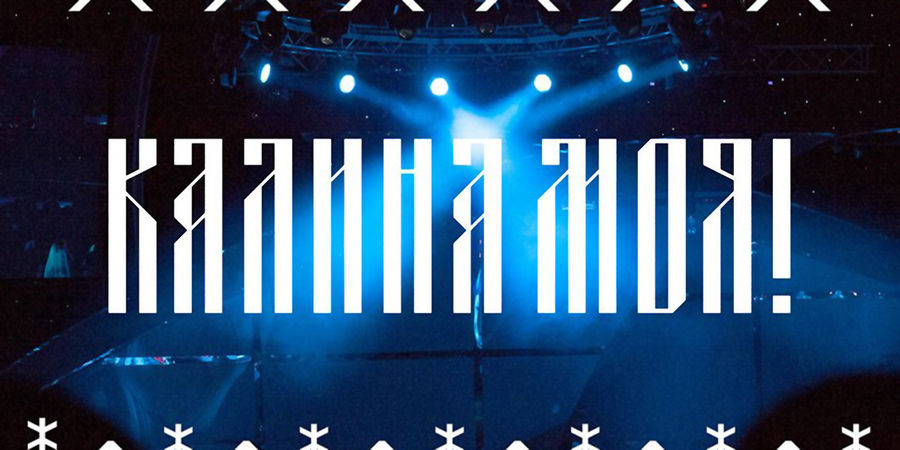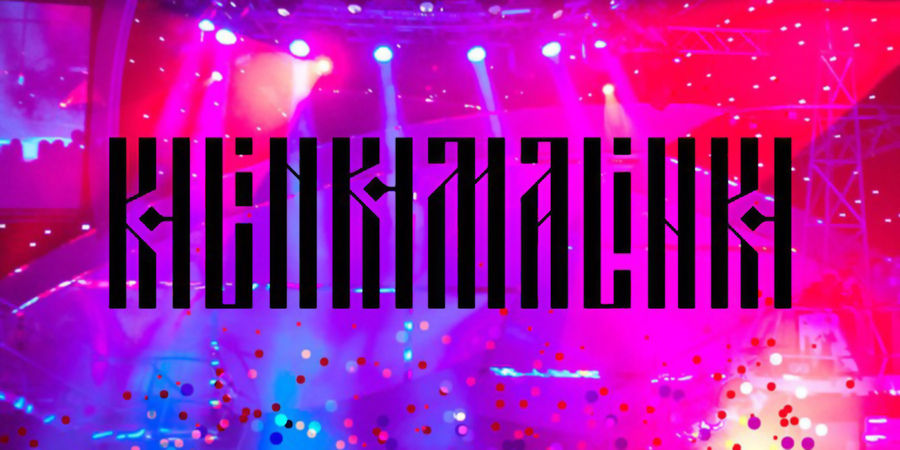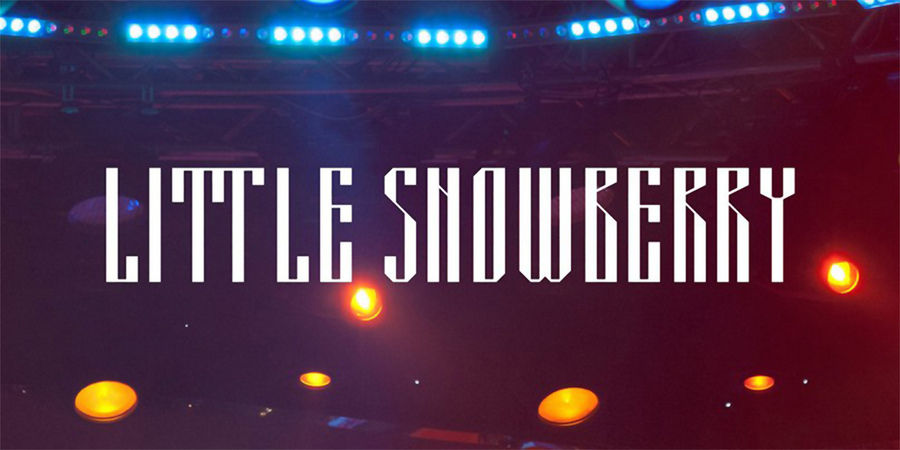
Contrast font pair with Excentra Pro Regular (1 of 5)About KalinkaMalinka is modern technocratic typeface based on ornamental Cyrillic script. The font supports different languages such as Spanish, English, Portuguese, German and French in Latin scripts and Ukrainian, Belorussian and Russian in Cyrillic. A variety of letter variants to ensure suitability. KalinkaMalinka is perfect for titles and is not suitable for a large amount of text. Can be used in posters, billboards, signboards and encrypted patterns. Typeface created by Tanya Lyashenko in 2015.
tall, slim, sharp, cutting, voiced, musical, angular, broken, cold, fashionable, modern, distinctive, original, notable, playful, splashy, solid, accurate, flat, architectural, strange, ironic, urban, fresh, expressive, brumal, icy, glad, alive, exotic, psychedelic, night